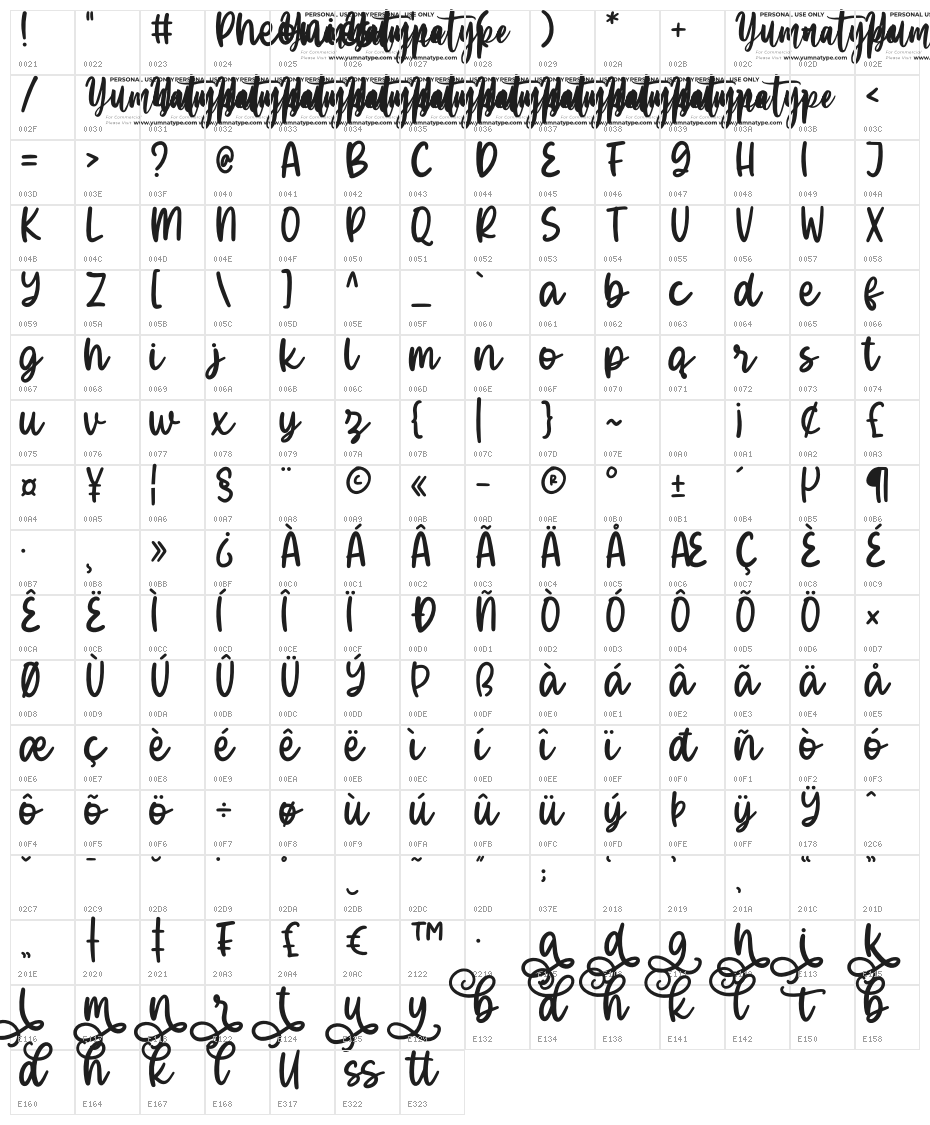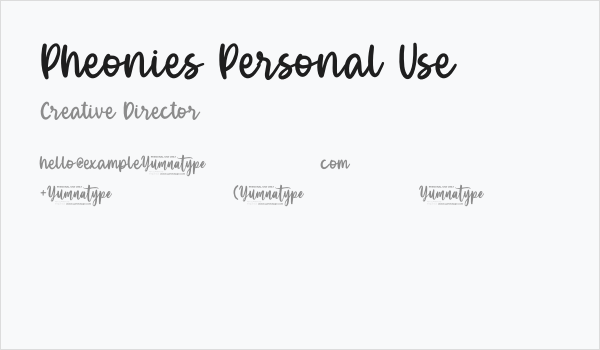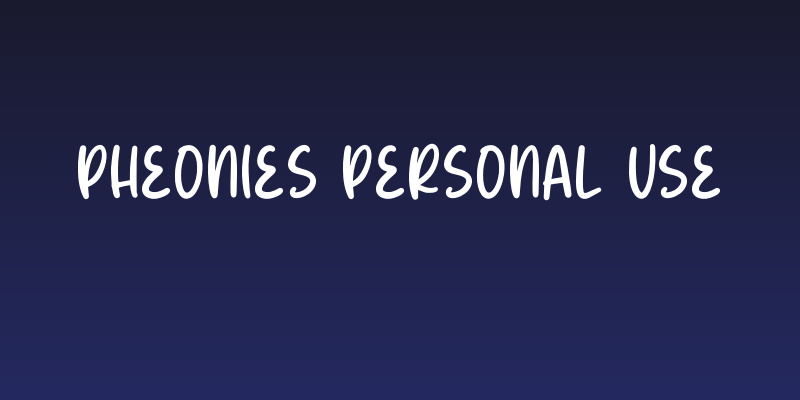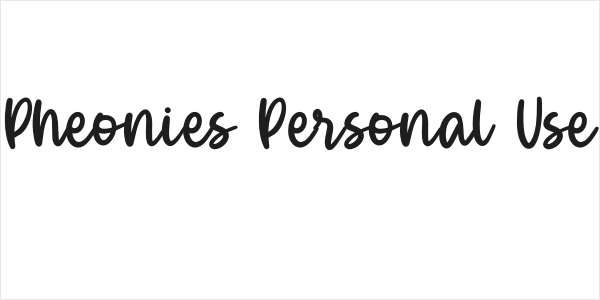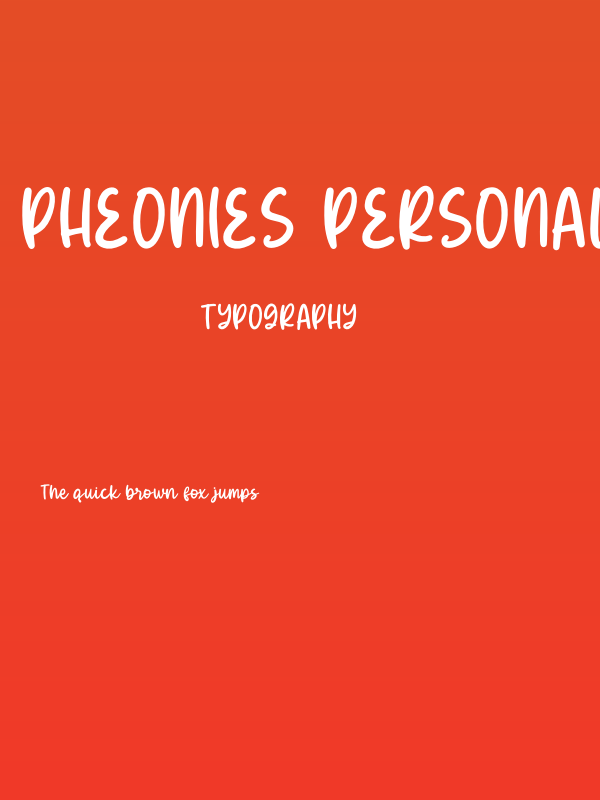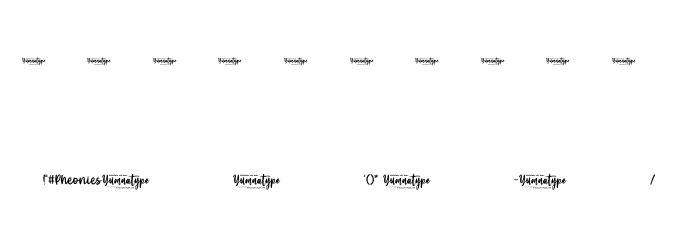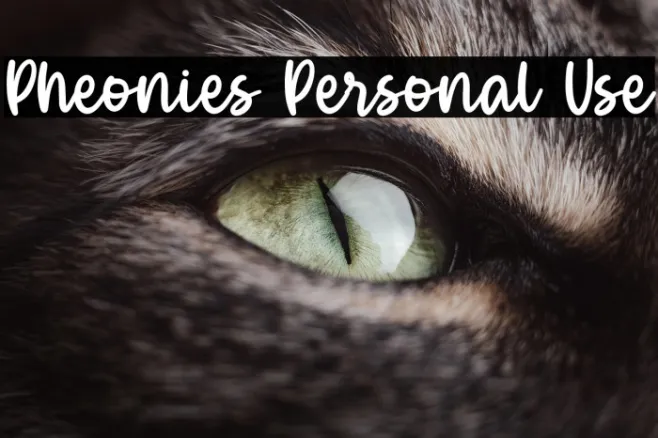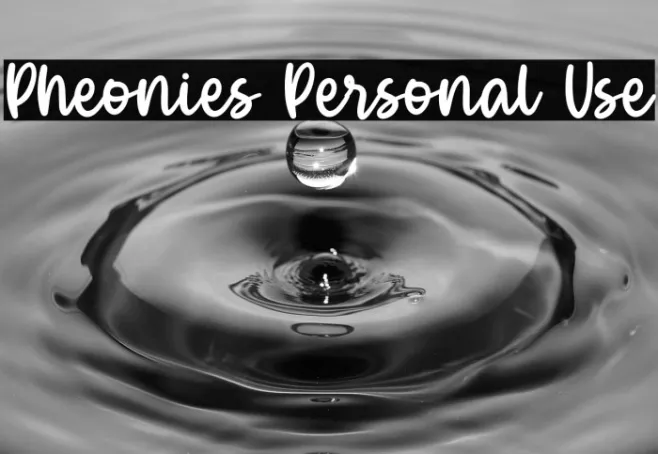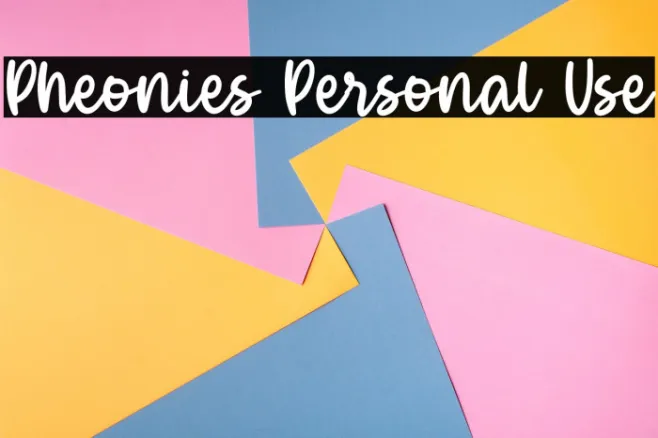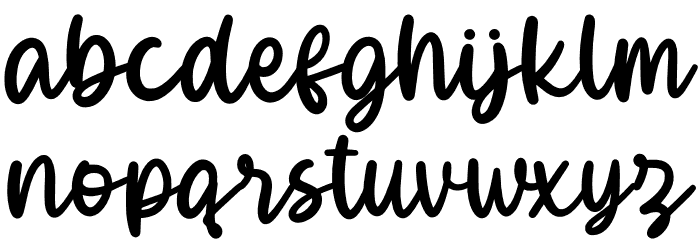
Pheonies Personal Use Font
Pheonies Personal Use Description
This font features a playful and bold handwritten style with smooth, flowing curves and a casual aesthetic. The uppercase letters are tall and rounded, while the lowercase letters maintain a consistent rhythm with slight variations in stroke width. The characters are closely spaced, creating a cohesive and lively appearance. The font's energetic style is enhanced by its medium contrast, with thicker strokes that add to its boldness. It is well-suited for projects that require a personal touch, such as greeting cards, invitations, and playful branding.
| Proposed Projects | Ideal for greeting cards, invitations, playful branding, and personal projects. |